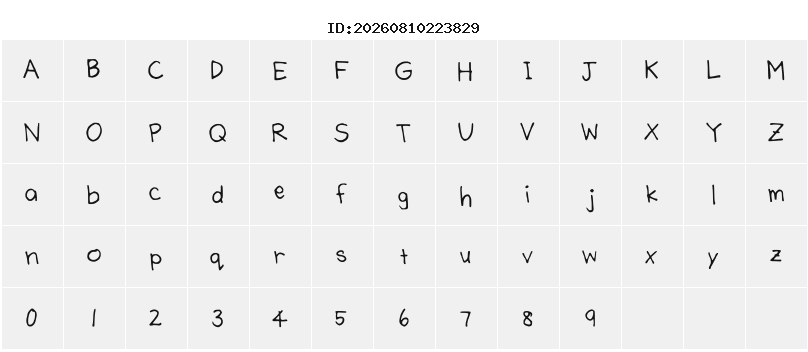
rimalik Preview
About rimalik.ttf
rimalik.ttf is a modern, elegant sans-serif font designed for ultimate readability and visual harmony. Perfect for branding, headlines, web design, and print materials.